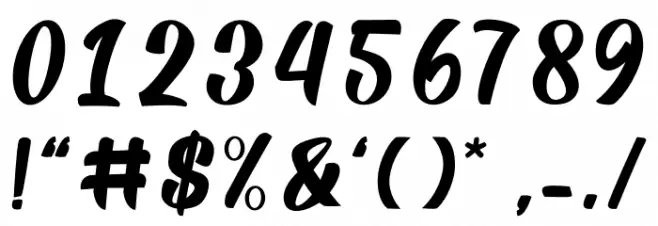
Reality Magic Font
Reality Magic Description
This font features a bold, expressive style with a handwritten flair, characterized by its thick strokes and dynamic curves. The uppercase letters are strong and impactful, while the lowercase letters maintain a playful yet sophisticated appearance. The numbers and special characters follow the same bold and energetic design, making them stand out. The font's overall look is modern and stylish, suitable for projects that require a personal touch or a statement piece. Its unique style can add a sense of creativity and flair to any design.
A bold, handwritten-style font with dynamic curves and thick strokes from Uncategorized fonts.